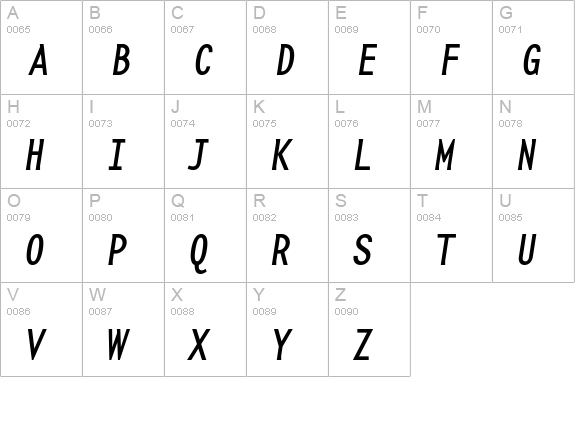
BaseMonoNarrowRegItalic Italic Font Details
BaseMonoNarrowRegItalic Italic is a distinctive, italic variant in the BaseMonoNarrowRegItalic typeface family \xE2\x80\x94 well suited to design and typography projects.
BaseMonoNarrowRegItalic Italic font is a sleek and modern typeface that combines a refined elegance with a touch of sophistication. Its italicized style adds a dynamic and stylish flair to any design project, making it perfect for use in branding, editorial design, and more. The narrow width of the characters gives it a contemporary and streamlined appearance, making it ideal for use in both print and digital media. This font is not only visually appealing but also highly versatile, allowing it to be used in a wide range of design applications. Whether you're creating a sleek logo, a sophisticated magazine layout, or a stylish website design, BaseMonoNarrowRegItalic Italic font is sure to make a strong impression. Best of all, this font is available for free download at FontsMarket.com, making it accessible to designers of all levels. With its clean lines, elegant curves, and modern aesthetic, BaseMonoNarrowRegItalic Italic font is a must-have addition to any designer's toolkit.